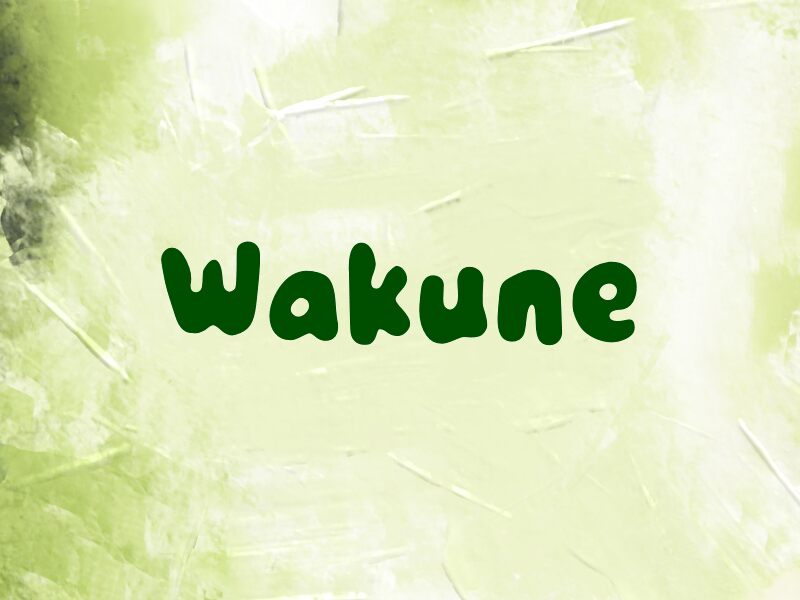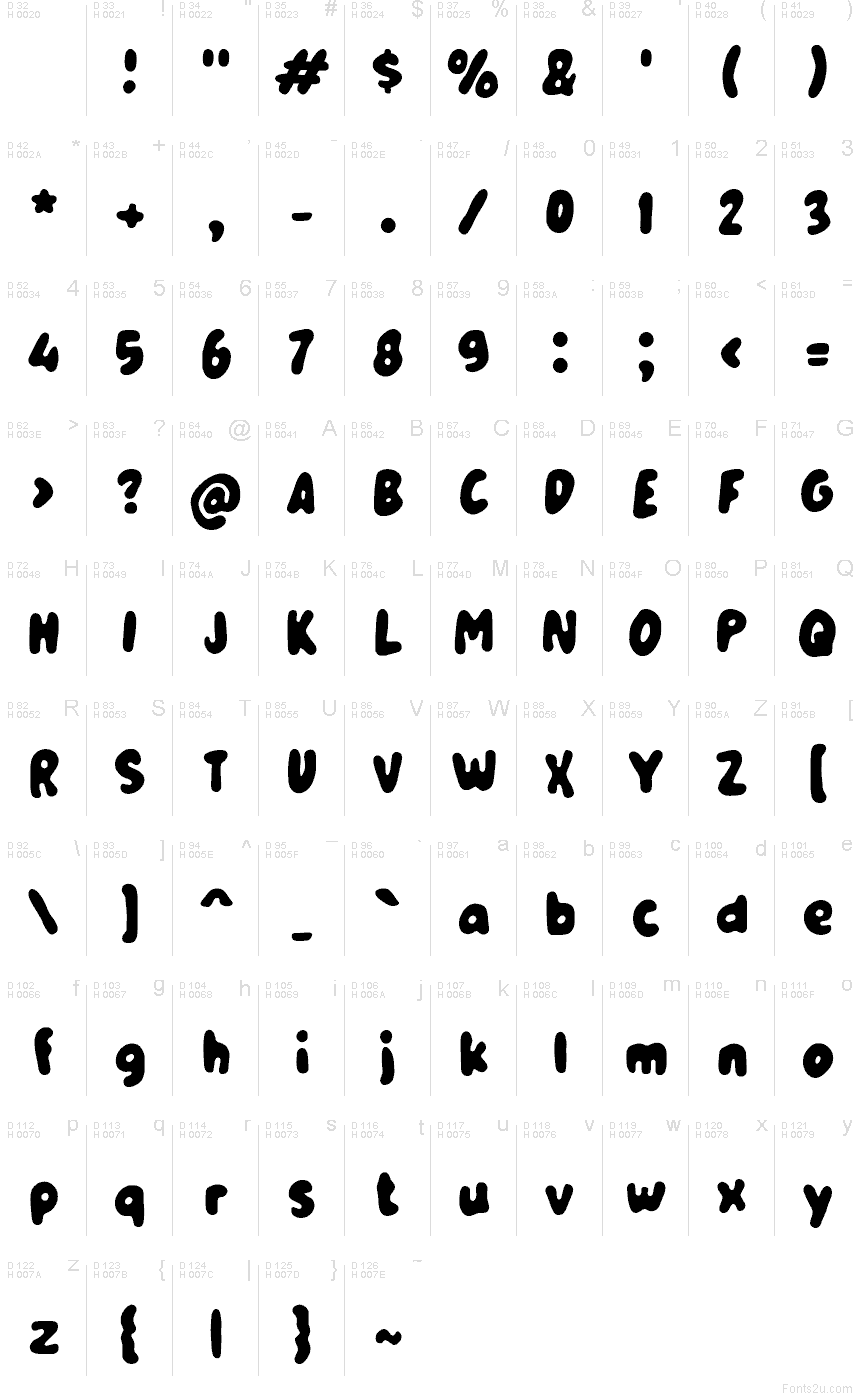
Wakune
Wakune font by wepfont.com is a free cartoon display typeface with big, inky shapes that look almost hand-squeezed onto the page. Its chunky, rounded letters feel soft and bouncy, like foam stickers or blobs of wet paint, giving every word a playful, slightly mischievous grin. The tight rhythm and bold weight mean it grabs attention instantly, even in quick-scroll environments.
Using Wakune, you can bring a friendly, kid-focused energy to game titles, toy packaging, children’s books, birthday invitations, classroom posters, and cheerful social graphics. This free font shines in large sizes, where its bubbly curves can really breathe; pair it with a clean geometric sans for smaller text to keep layouts readable while letting Wakune do the fun, noisy shouting.